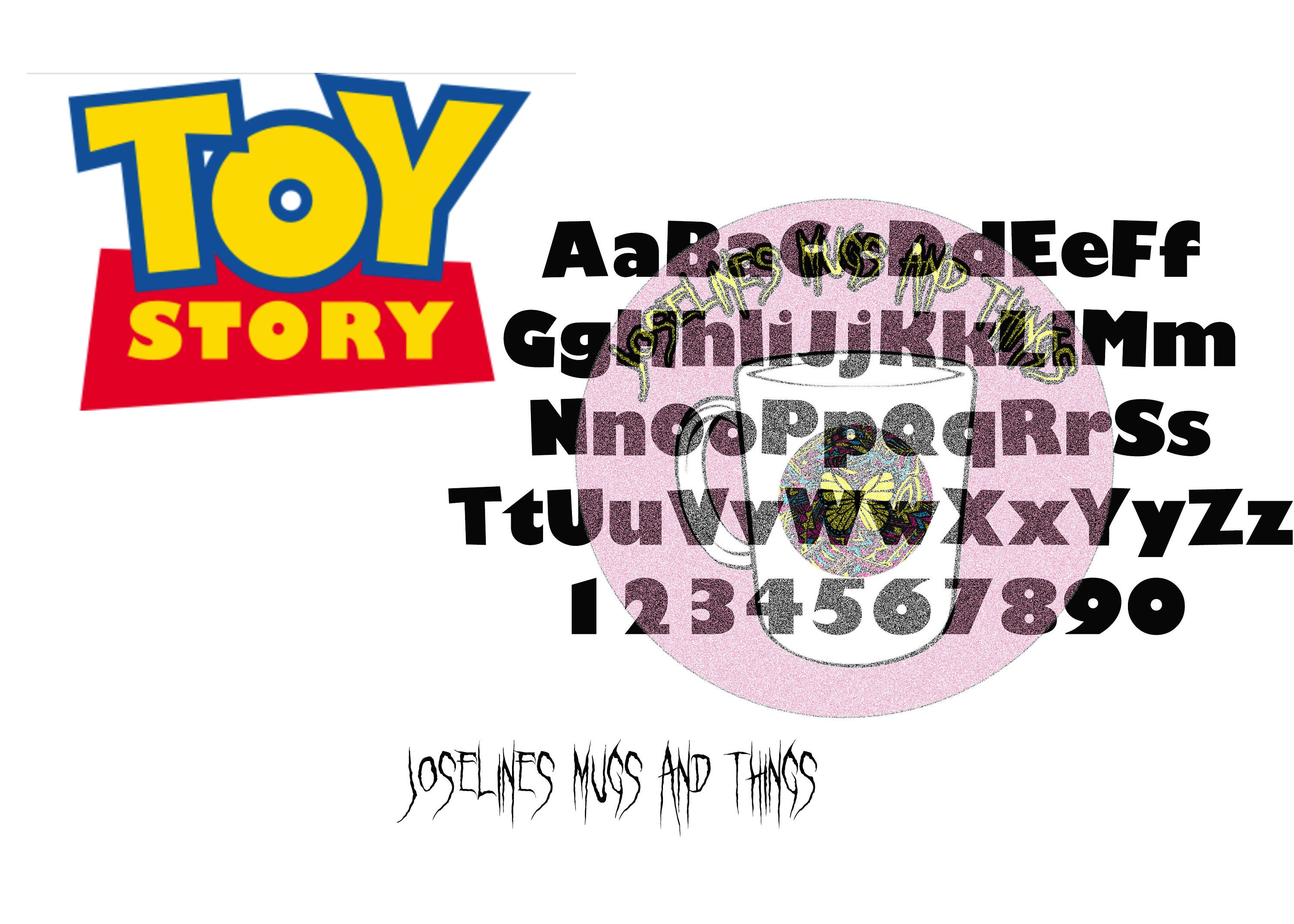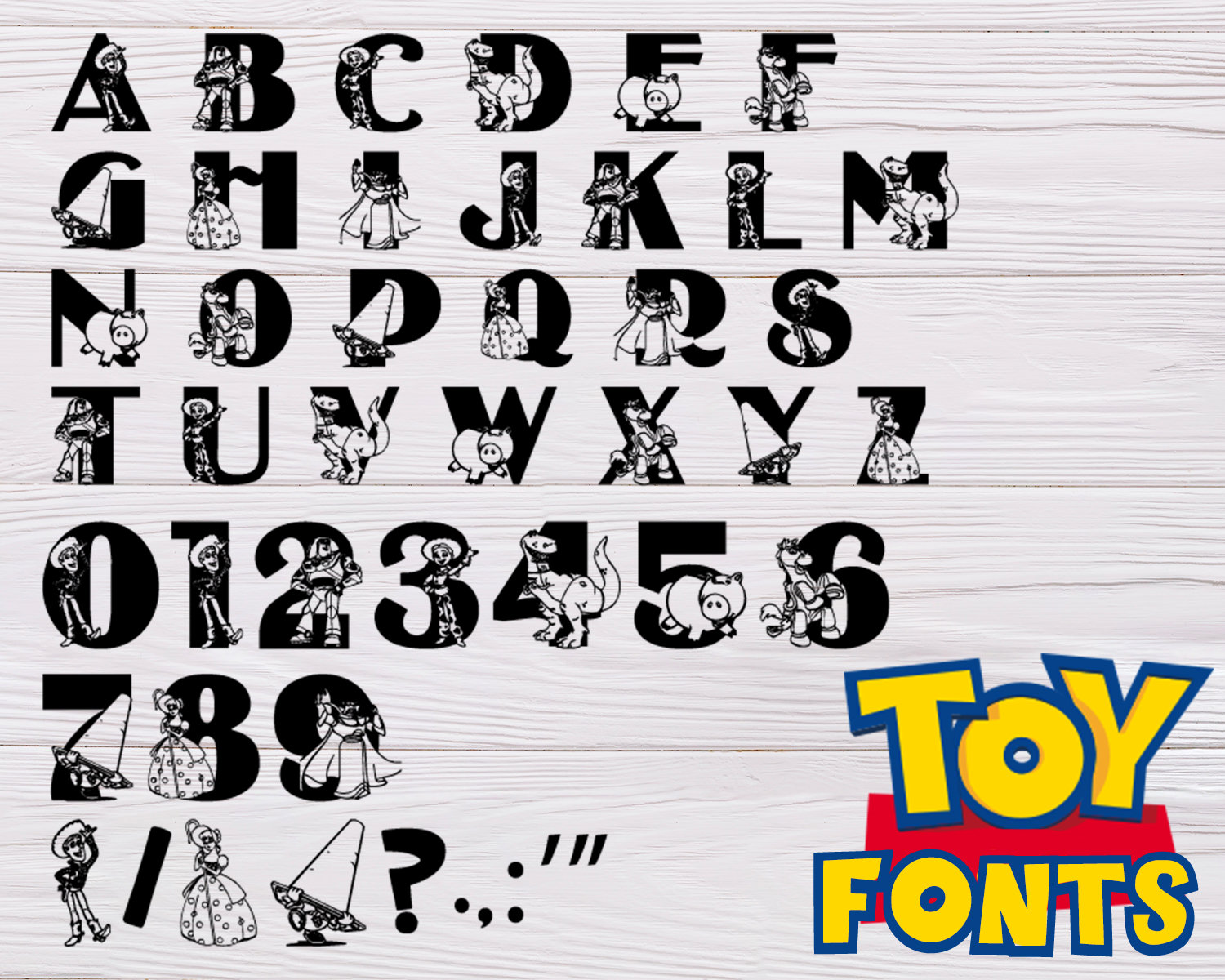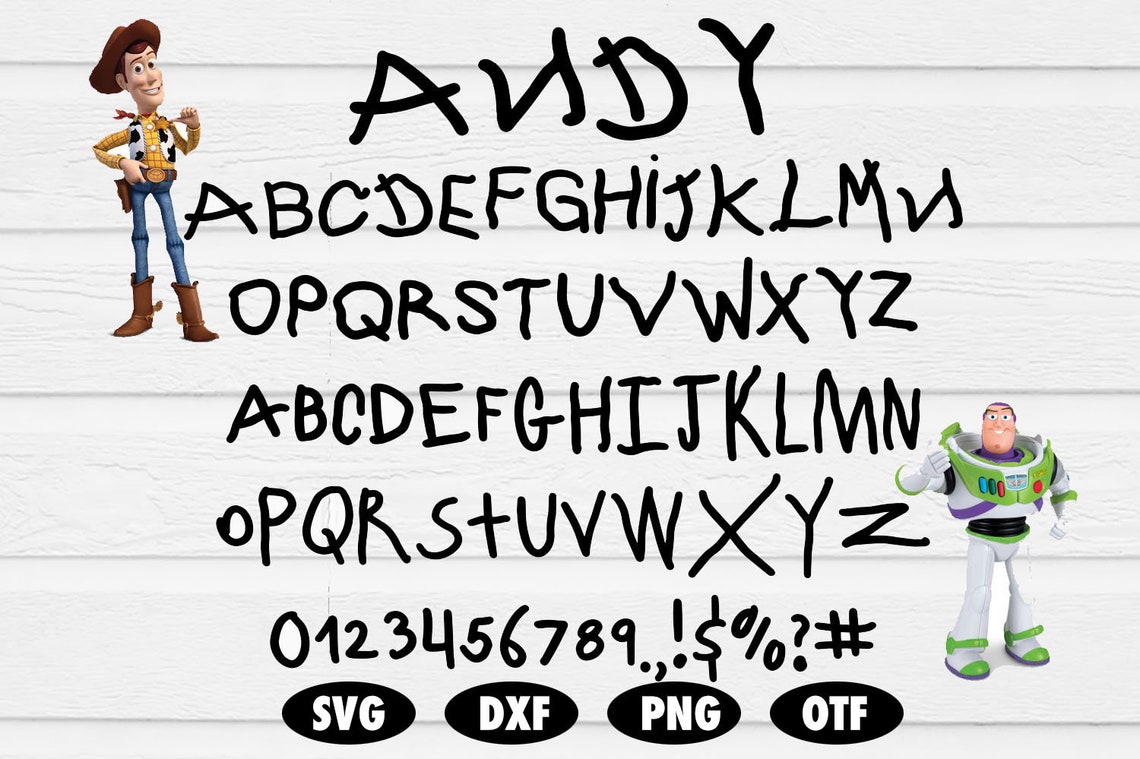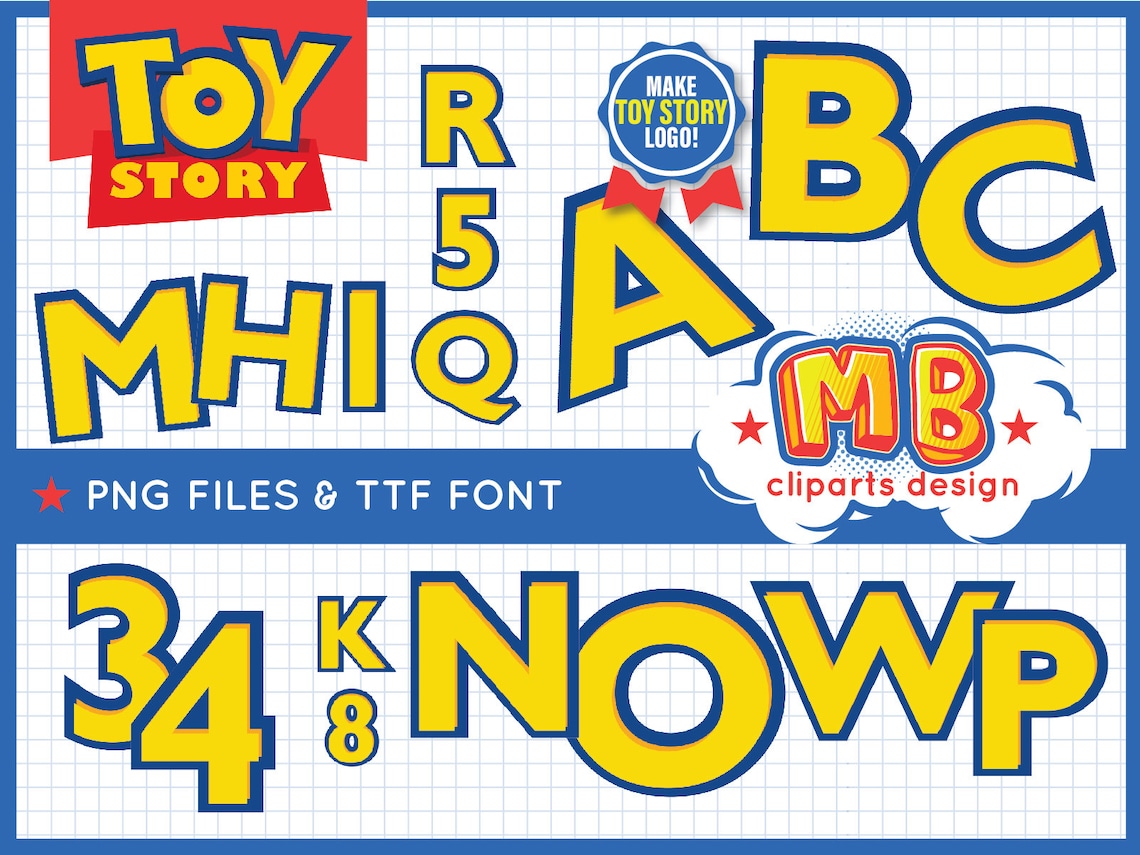
Toy Story Font Word . We suggest you use thick sans serifs for better results but you can try. We’re here to offer you the classic toy story font free of charge. Today we are here to bestow a movie typeface the toy story font. The closest lightyear font available for the public is called peace sans. Try our text generator and create cool graphics for toy story font, then you can save. Just enter your text and select a font to get started. The toy story logo was designed using two lettering styles. The “story” part was probably designed using the font gill sans bold, which is. The font gill sans ultrabold comes pretty close to matching the look and feel of the “story” part of the text. If you’re making a design and want to use this iconic font in your picture than look no further. Walt disney pictures released toy story as a computer animated feature film in 1995, featuring an. However, there is a font available today that mimics the look of the highly popular toy story logo font. The toy story is an american adventure cartoon comedy film released by walt. Toy story font free download. Toy story font generator & download is available free at fontbolt.
The toy story logo was designed using two lettering styles. Walt disney pictures released toy story as a computer animated feature film in 1995, featuring an. Try our text generator and create cool graphics for toy story font, then you can save. We suggest you use thick sans serifs for better results but you can try. The closest lightyear font available for the public is called peace sans. We’re here to offer you the classic toy story font free of charge. The font gill sans ultrabold comes pretty close to matching the look and feel of the “story” part of the text. The toy story is an american adventure cartoon comedy film released by walt. If you’re making a design and want to use this iconic font in your picture than look no further. The “story” part was probably designed using the font gill sans bold, which is.
Toy Story Font Word Toy story font free download. The closest lightyear font available for the public is called peace sans. We suggest you use thick sans serifs for better results but you can try. The text generator below will let you create a toy story like logo. Today we are here to bestow a movie typeface the toy story font. Walt disney pictures released toy story as a computer animated feature film in 1995, featuring an. However, there is a font available today that mimics the look of the highly popular toy story logo font. The “story” part was probably designed using the font gill sans bold, which is. If you’re making a design and want to use this iconic font in your picture than look no further. The toy story logo was designed using two lettering styles. We’re here to offer you the classic toy story font free of charge. Toy story font generator & download is available free at fontbolt. The toy story is an american adventure cartoon comedy film released by walt. Try our text generator and create cool graphics for toy story font, then you can save. Just enter your text and select a font to get started. The font gill sans ultrabold comes pretty close to matching the look and feel of the “story” part of the text.
Toy Story Font Svg Files Toy Story Alphabet Letters and Etsy Canada Toy Story Font Word The font gill sans ultrabold comes pretty close to matching the look and feel of the “story” part of the text. The “story” part was probably designed using the font gill sans bold, which is. The toy story is an american adventure cartoon comedy film released by walt. Just enter your text and select a font to get started. However,. Toy Story Font Word.
Toy Story Font SVG SVG DROP Toy Story Font Word The font gill sans ultrabold comes pretty close to matching the look and feel of the “story” part of the text. Toy story font generator & download is available free at fontbolt. The toy story logo was designed using two lettering styles. Toy story font free download. If you’re making a design and want to use this iconic font in. Toy Story Font Word.
TOY STORY FONT svg toy story alphabet toy story numbers toy Etsy Toy Story Font Word The font gill sans ultrabold comes pretty close to matching the look and feel of the “story” part of the text. Toy story font free download. Toy story font generator & download is available free at fontbolt. Just enter your text and select a font to get started. Try our text generator and create cool graphics for toy story font,. Toy Story Font Word.
Toy Story Font SVG, PNG, DXF Toy Story Font Word Just enter your text and select a font to get started. We’re here to offer you the classic toy story font free of charge. The text generator below will let you create a toy story like logo. We suggest you use thick sans serifs for better results but you can try. Today we are here to bestow a movie typeface. Toy Story Font Word.
Toy Story Font SVG Toy Story Alphabet SVG Toy Story Letters Toy Story Font Word Toy story font generator & download is available free at fontbolt. Just enter your text and select a font to get started. The closest lightyear font available for the public is called peace sans. However, there is a font available today that mimics the look of the highly popular toy story logo font. The toy story logo was designed using. Toy Story Font Word.
TOY STORY FONT svg toy story alphabet toy story numbers toy Etsy Toy Story Font Word Just enter your text and select a font to get started. The toy story is an american adventure cartoon comedy film released by walt. Today we are here to bestow a movie typeface the toy story font. We suggest you use thick sans serifs for better results but you can try. Toy story font free download. The closest lightyear font. Toy Story Font Word.
Toy Story TTF Font PNG Toy Story Alphabet Toy Story Clipart Etsy Toy Story Font Word The “story” part was probably designed using the font gill sans bold, which is. If you’re making a design and want to use this iconic font in your picture than look no further. We’re here to offer you the classic toy story font free of charge. However, there is a font available today that mimics the look of the highly. Toy Story Font Word.
Toy Story Font Download Free Font & Logo Toy Story Font Word We suggest you use thick sans serifs for better results but you can try. However, there is a font available today that mimics the look of the highly popular toy story logo font. The font gill sans ultrabold comes pretty close to matching the look and feel of the “story” part of the text. If you’re making a design and. Toy Story Font Word.
TOY STORY FONT svg toy story alphabet toy story numbers toy Etsy Toy Story Font Word The font gill sans ultrabold comes pretty close to matching the look and feel of the “story” part of the text. Try our text generator and create cool graphics for toy story font, then you can save. Just enter your text and select a font to get started. Today we are here to bestow a movie typeface the toy story. Toy Story Font Word.